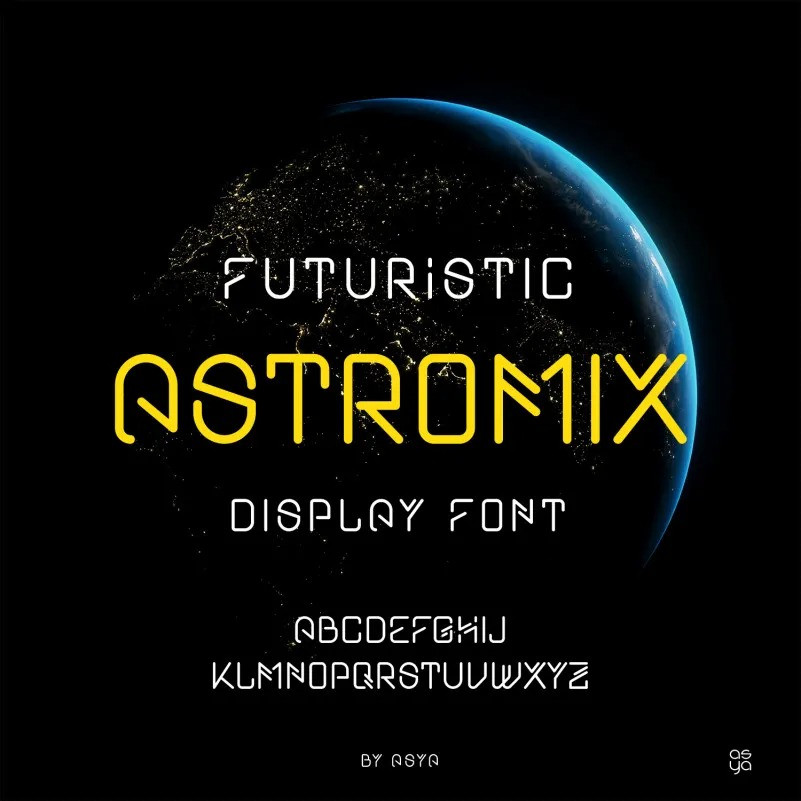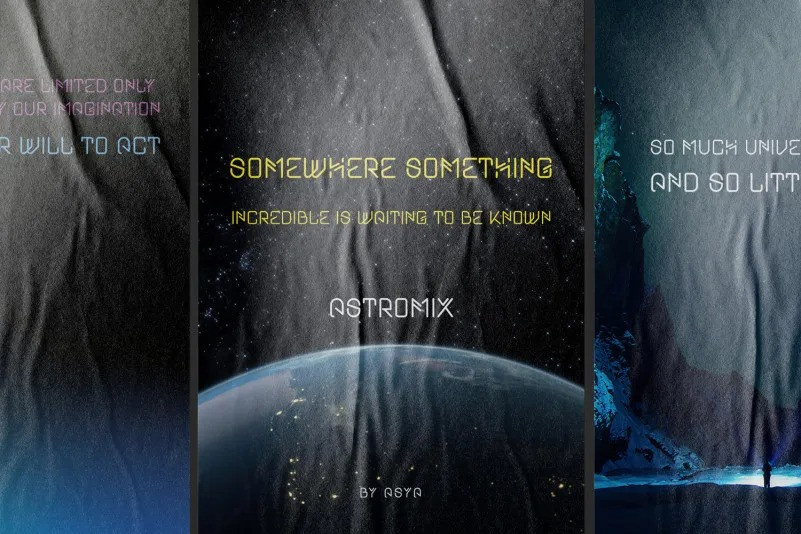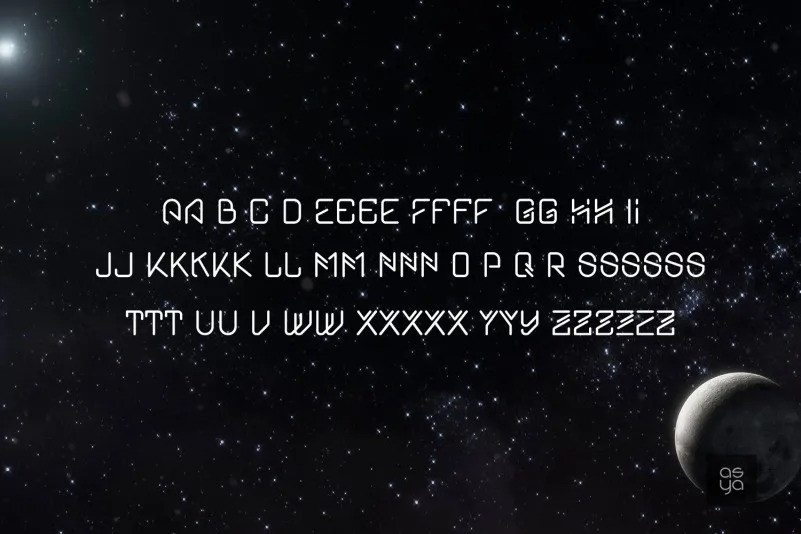
Astromix Display Font
Astromix is a futuristic, modern, sci-fi, hi-tech and geometric display font. Astromix is great for logos, branding projects, t-shirt designs, apparel, posters, banners, streetwear designs, or anything that needs an innovative feel.